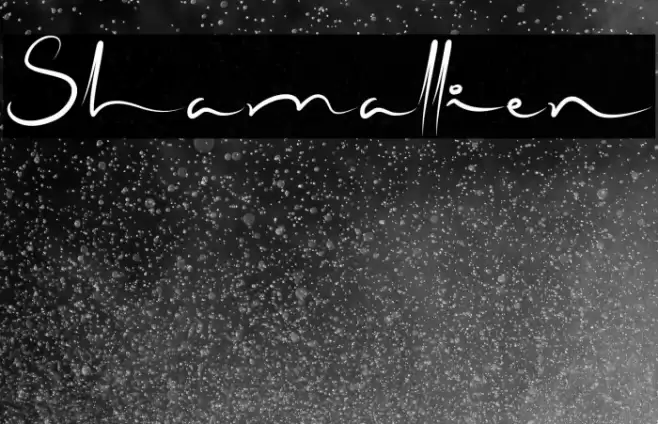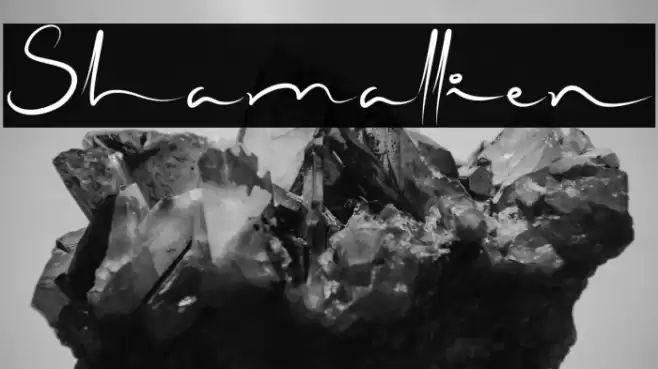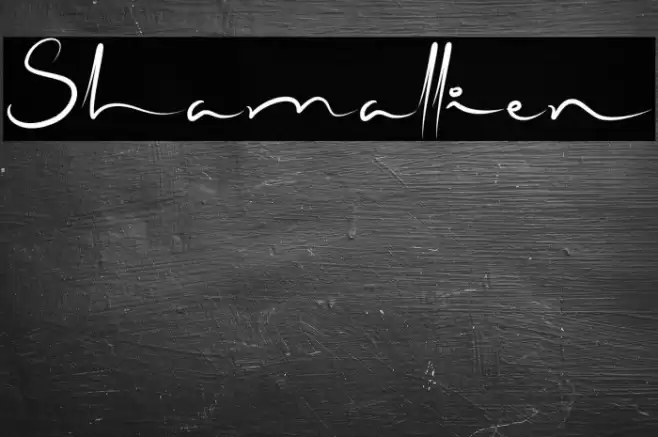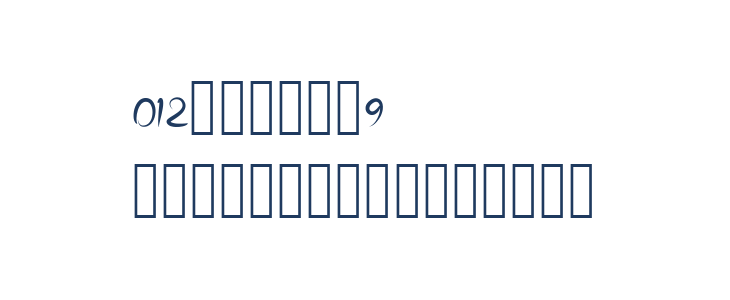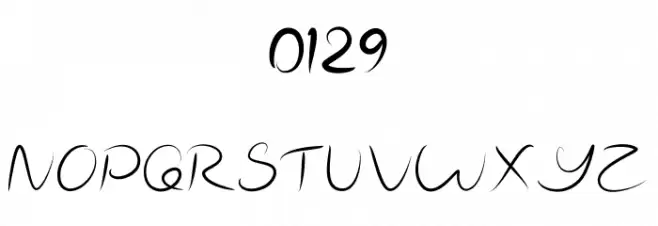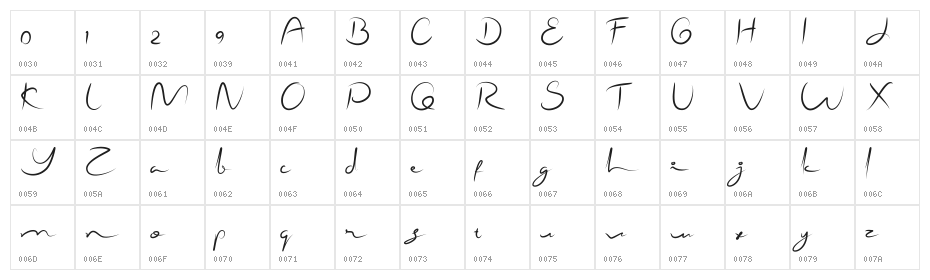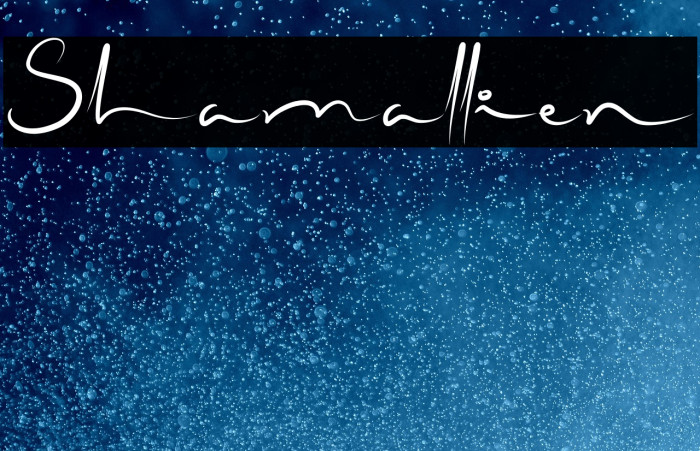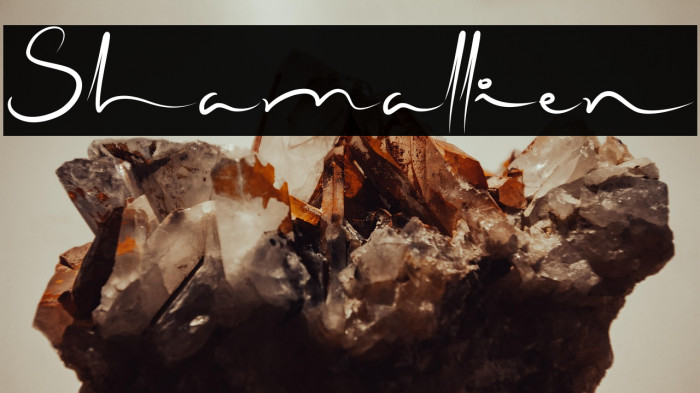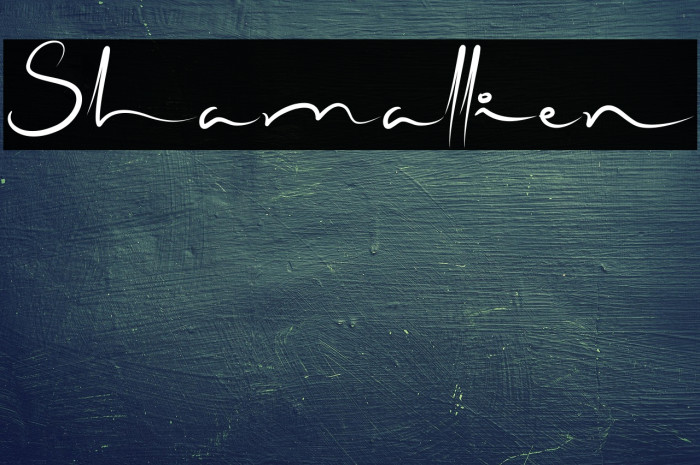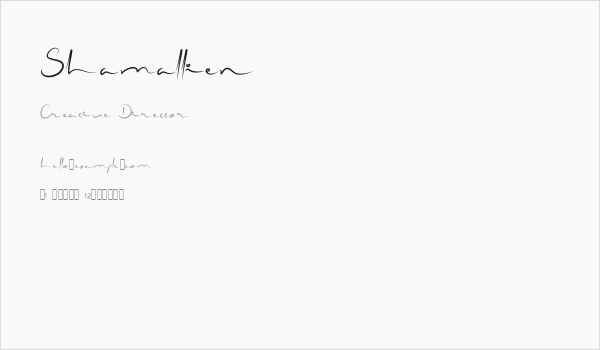
Shamallien Font
Shamallien Description
This font features a fluid and elegant script style, characterized by its smooth, flowing lines and graceful curves. The uppercase letters exhibit a sense of sophistication with their elongated strokes and subtle flourishes, while the lowercase letters maintain a consistent rhythm, enhancing readability. The numerals are designed with a similar aesthetic, ensuring cohesion across all characters. The overall appearance is both modern and timeless, making it suitable for a variety of design applications. The font's delicate yet confident strokes convey a sense of elegance and refinement, ideal for projects that require a touch of class and style.
A fluid and elegant script font with smooth, flowing lines and graceful curves from Regular fonts.
- Proposed Projects: Ideal for wedding invitations, elegant branding, high-end product packaging, and sophisticated editorial design.
- Overall Style: Elegant, Modern
- Use Case: Logos, Invitations, Branding